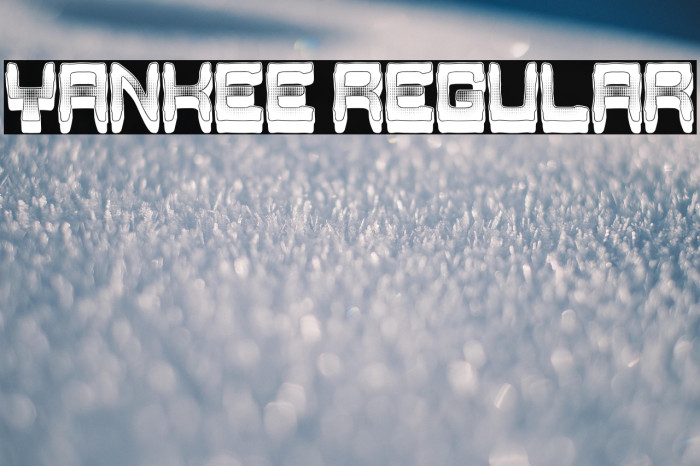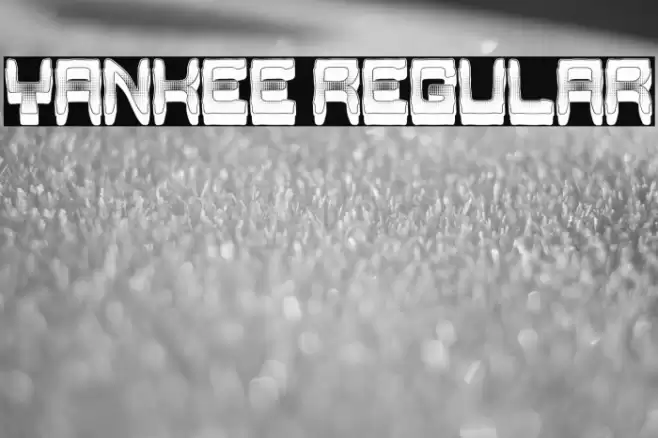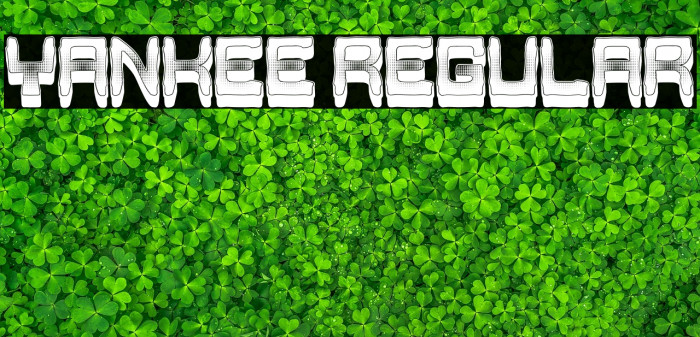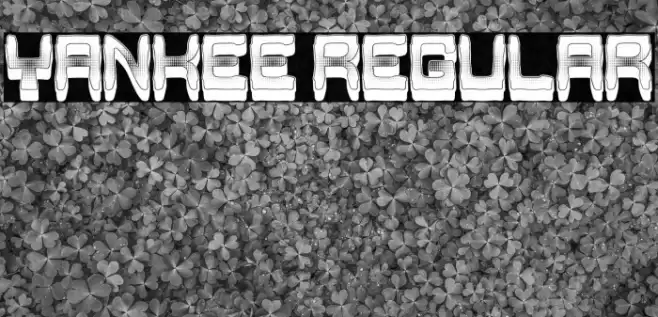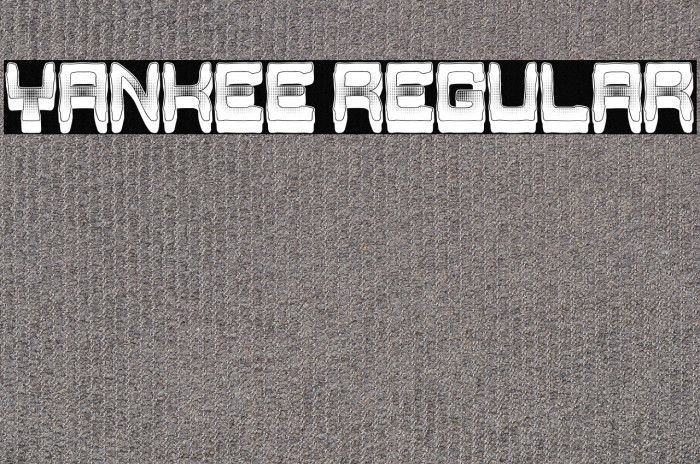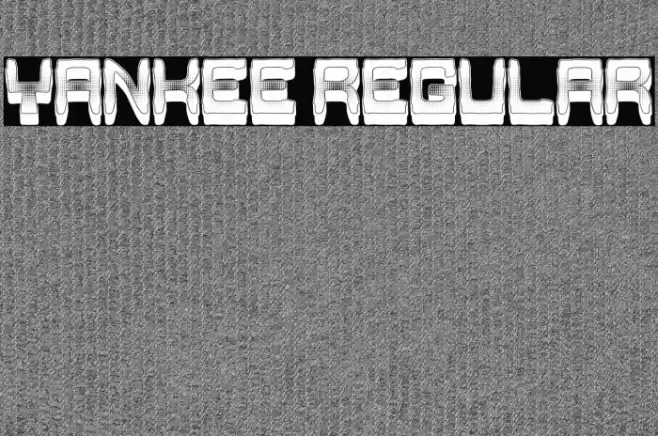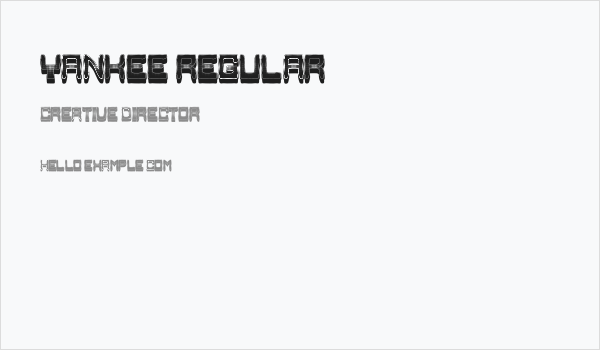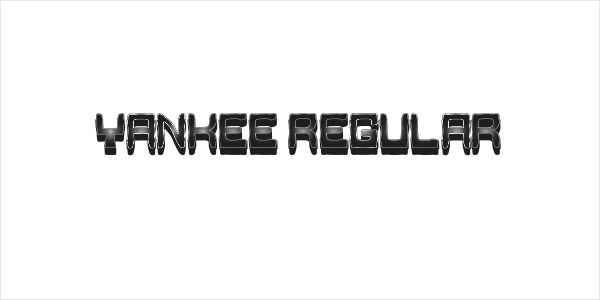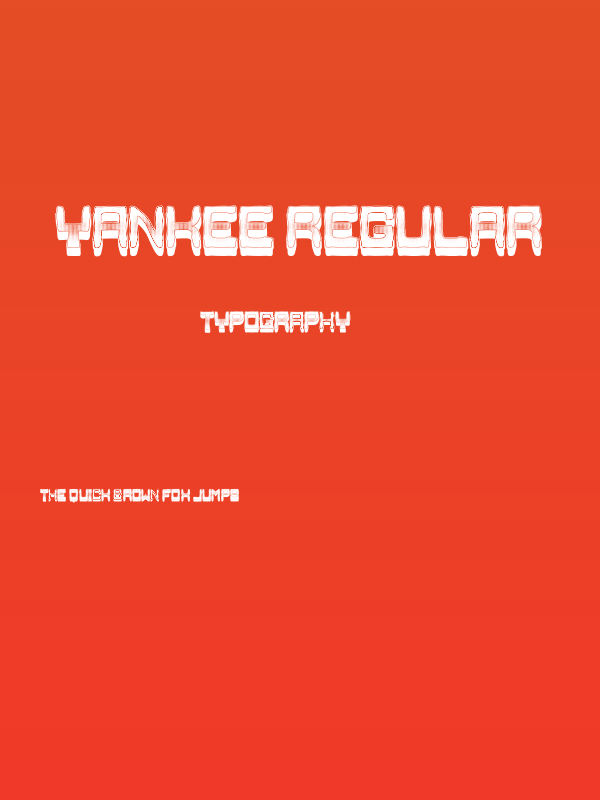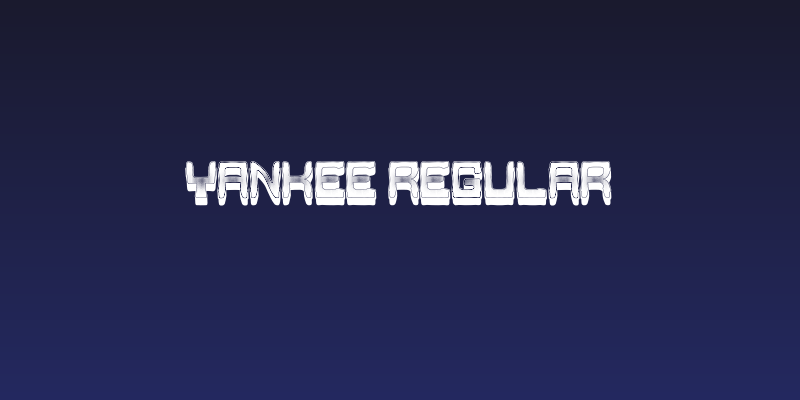
Yankee Regular Font
Yankee Regular Description
This font features a bold, three-dimensional appearance with a distinct shadow effect that gives it a striking, futuristic look. The characters are wide and blocky, with a consistent thickness throughout, creating a sense of strength and stability. The shadowing adds depth, making the letters appear as if they are raised or embossed. This style is reminiscent of retro-futuristic designs, often seen in sci-fi themes. The font's unique texture and shading make it stand out, ideal for projects that require a bold statement.
| Overall Style | Futuristic, Retro |
| Proposed Projects | Ideal for sci-fi themed posters, video game titles, or any project needing a bold, futuristic look. |